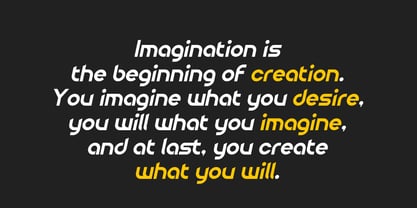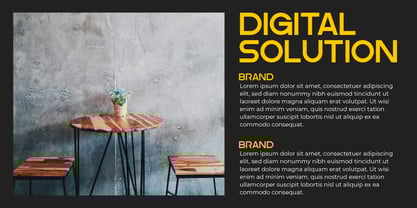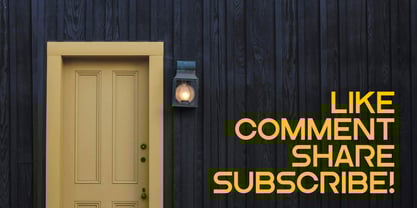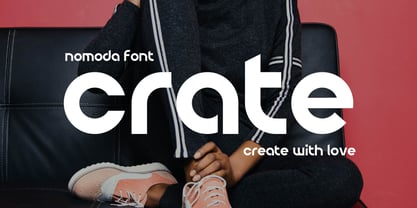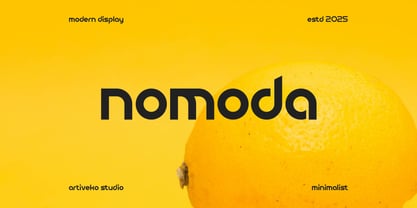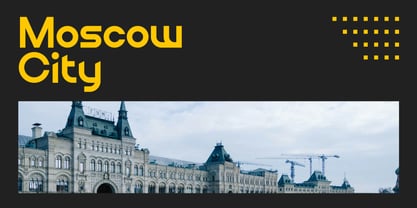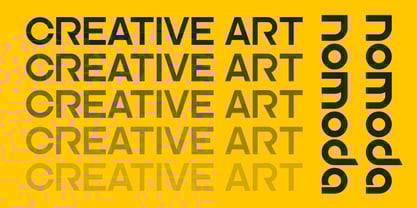
Nomoda
by Artiveko
The Nomoda Font Family was designed by Iwan Alwan and published by Artiveko. Nomoda contains 2 styles and family package options. More about this family
Nomoda is a creative sans serif font designed with a modern and stylish touch. Its sleek, well-balanced letterforms make it perfect for branding, logos, editorial layouts, and digital designs. With multilingual support, ligatures, and alternates, Nomoda offers versatility and uniqueness, making it an excellent choice for projects that demand a fresh, contemporary, and professional look.
Designers: Iwan Alwan
Foundry: Artiveko